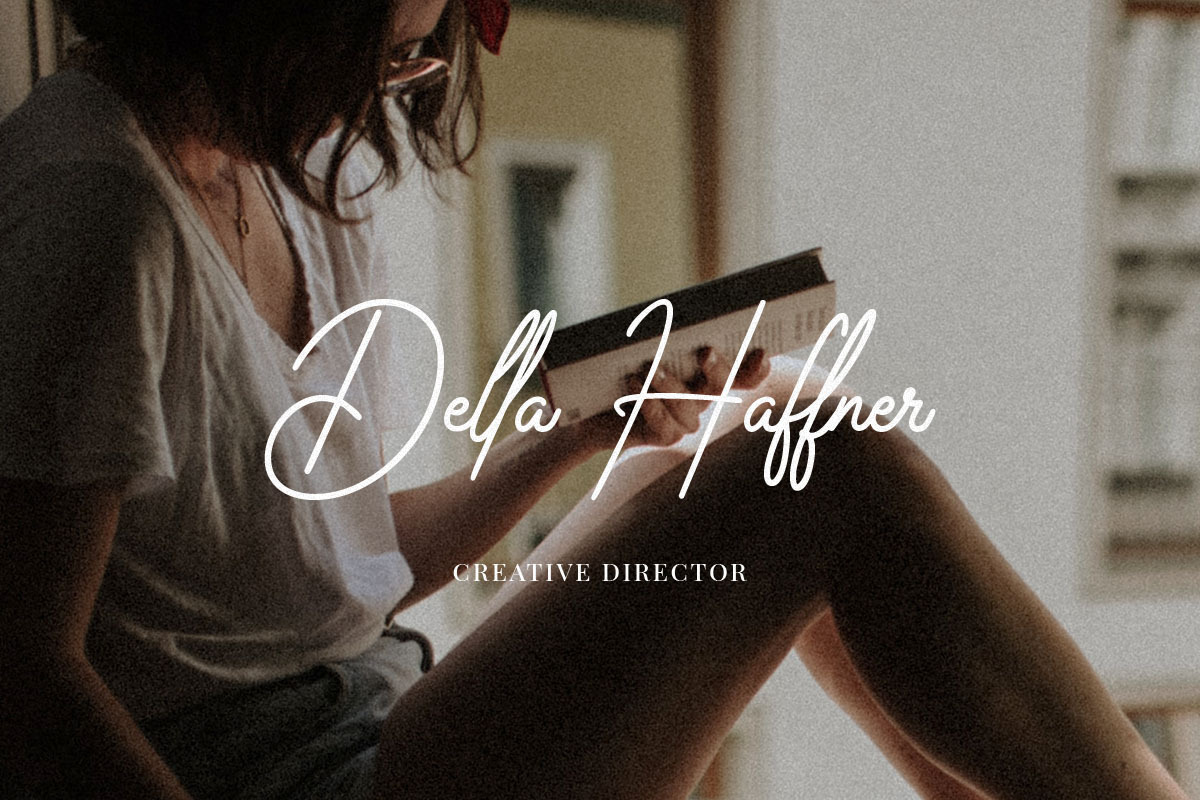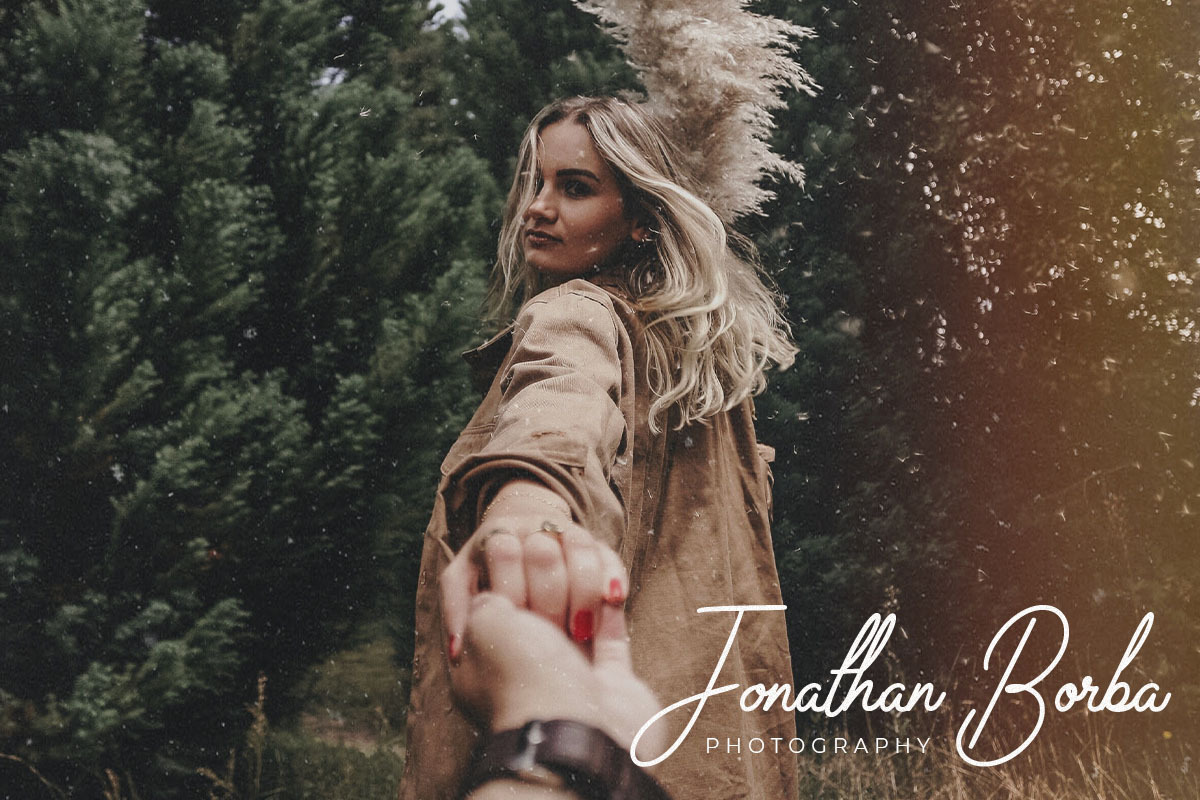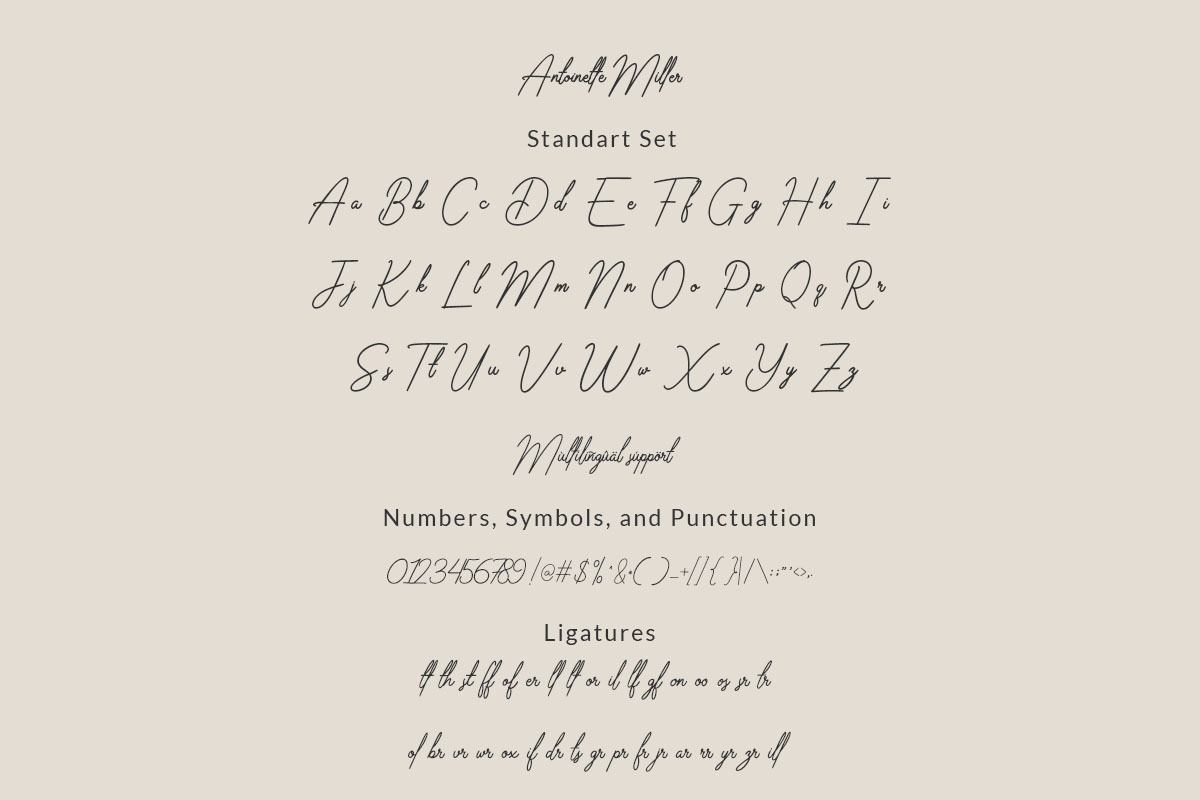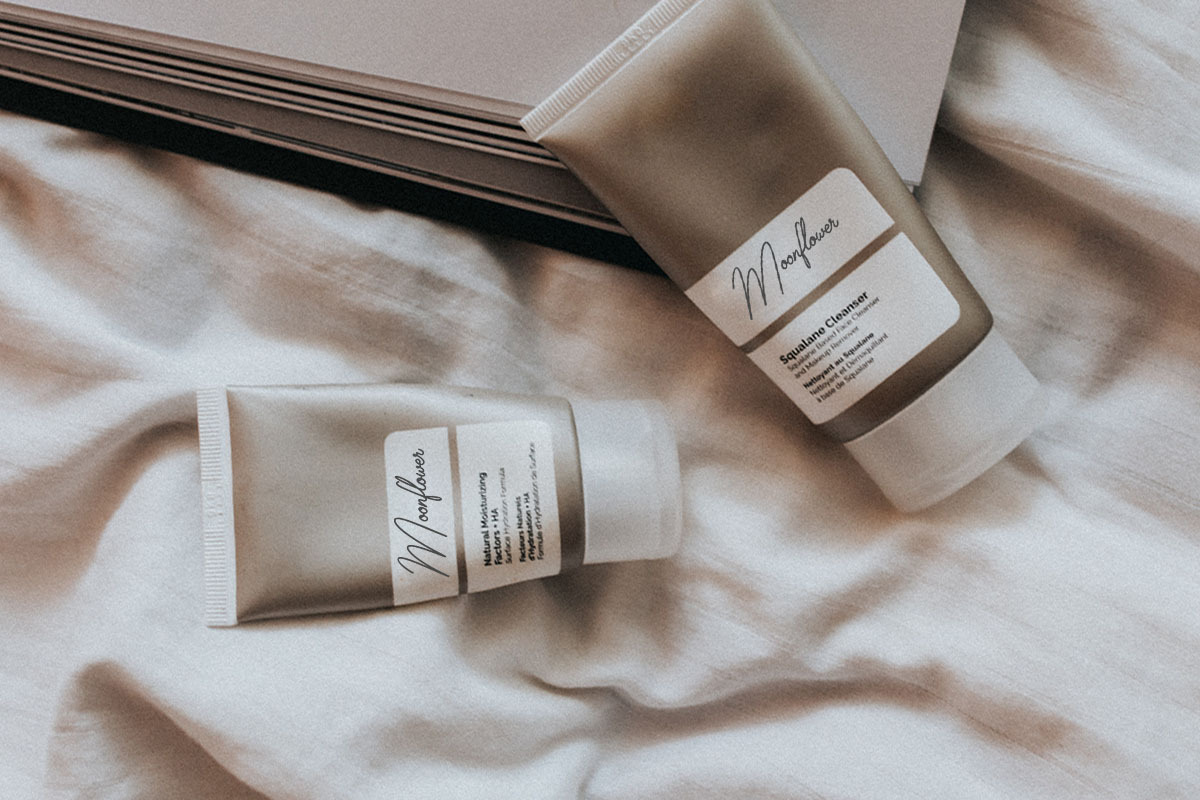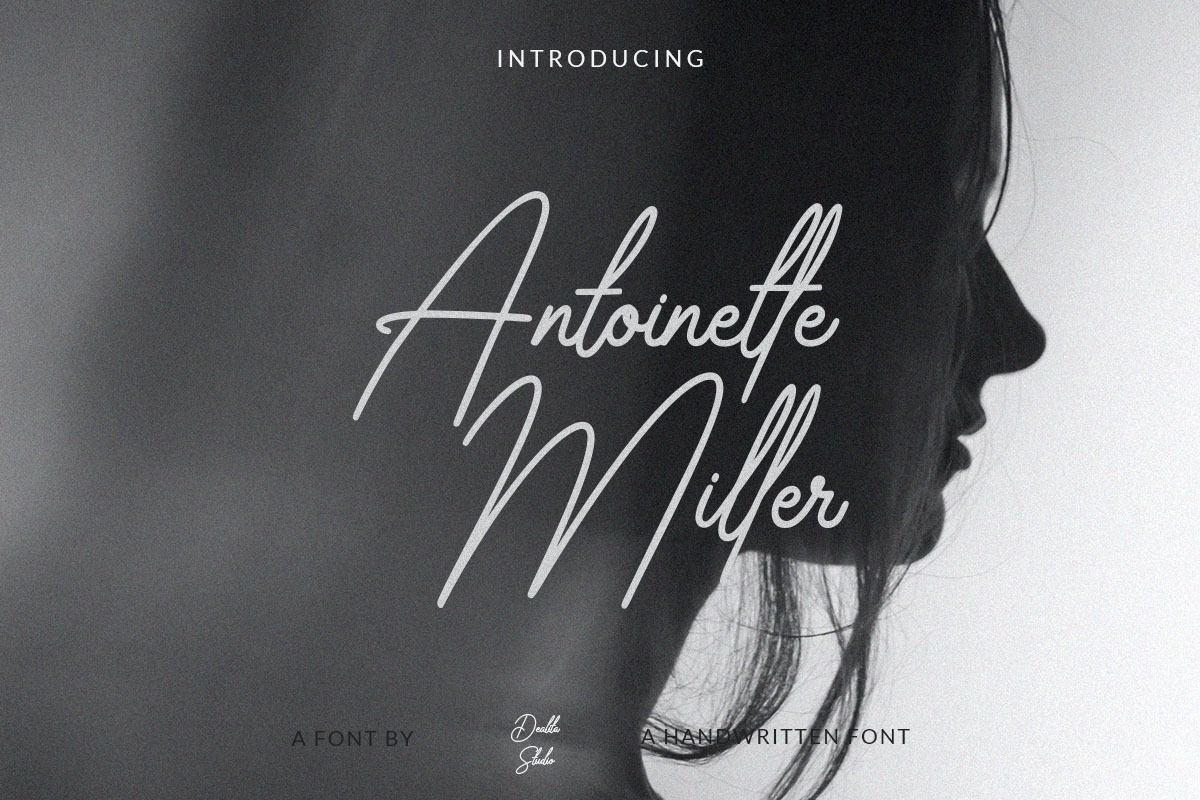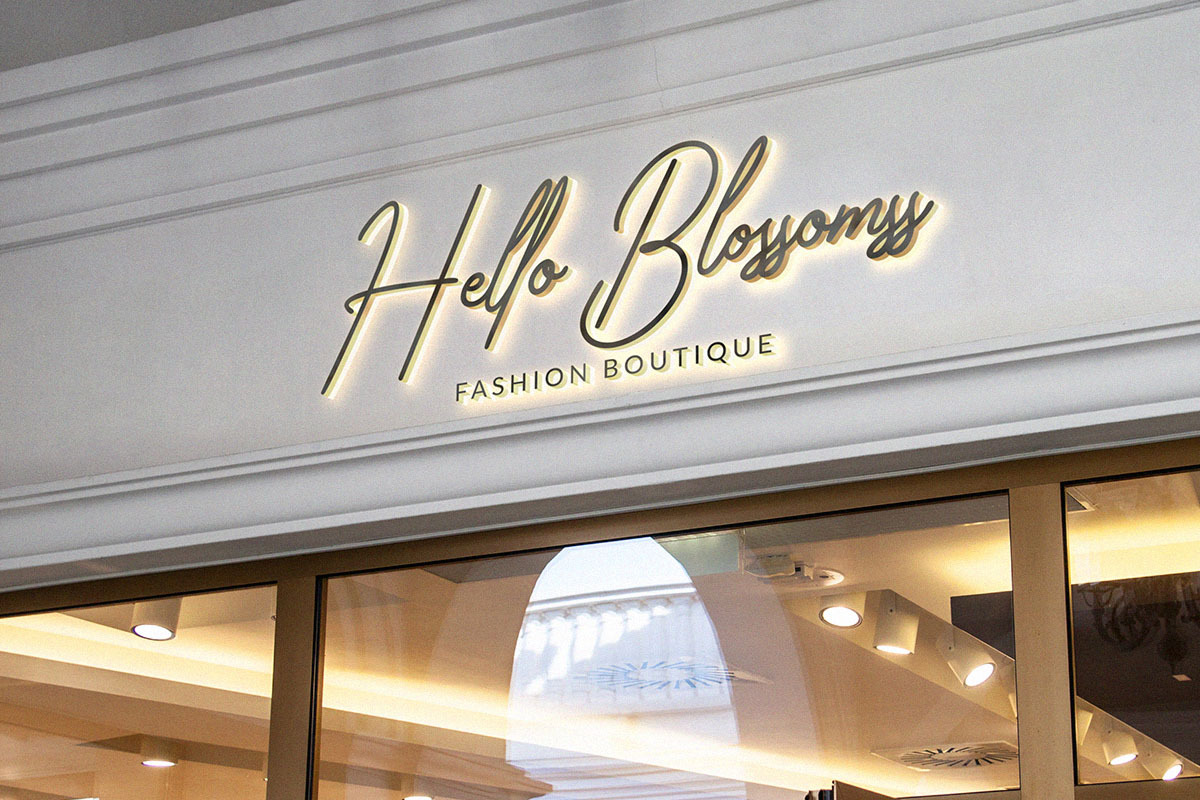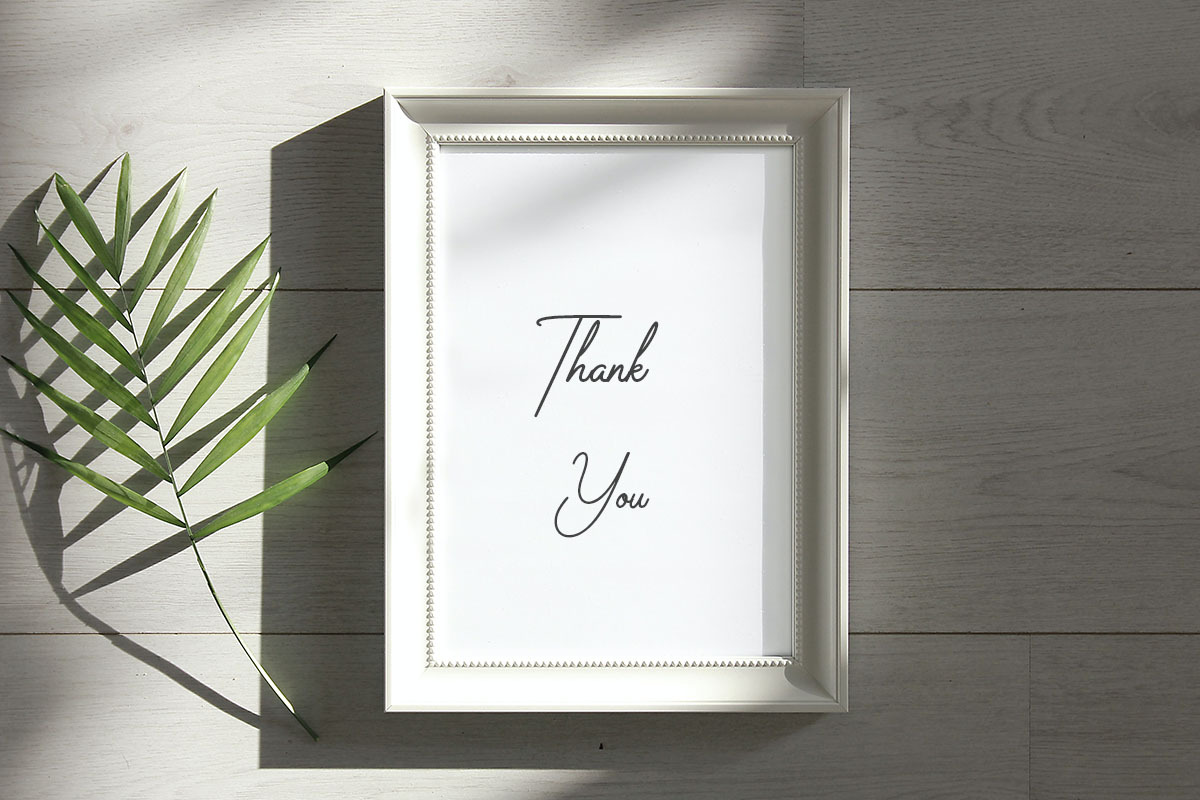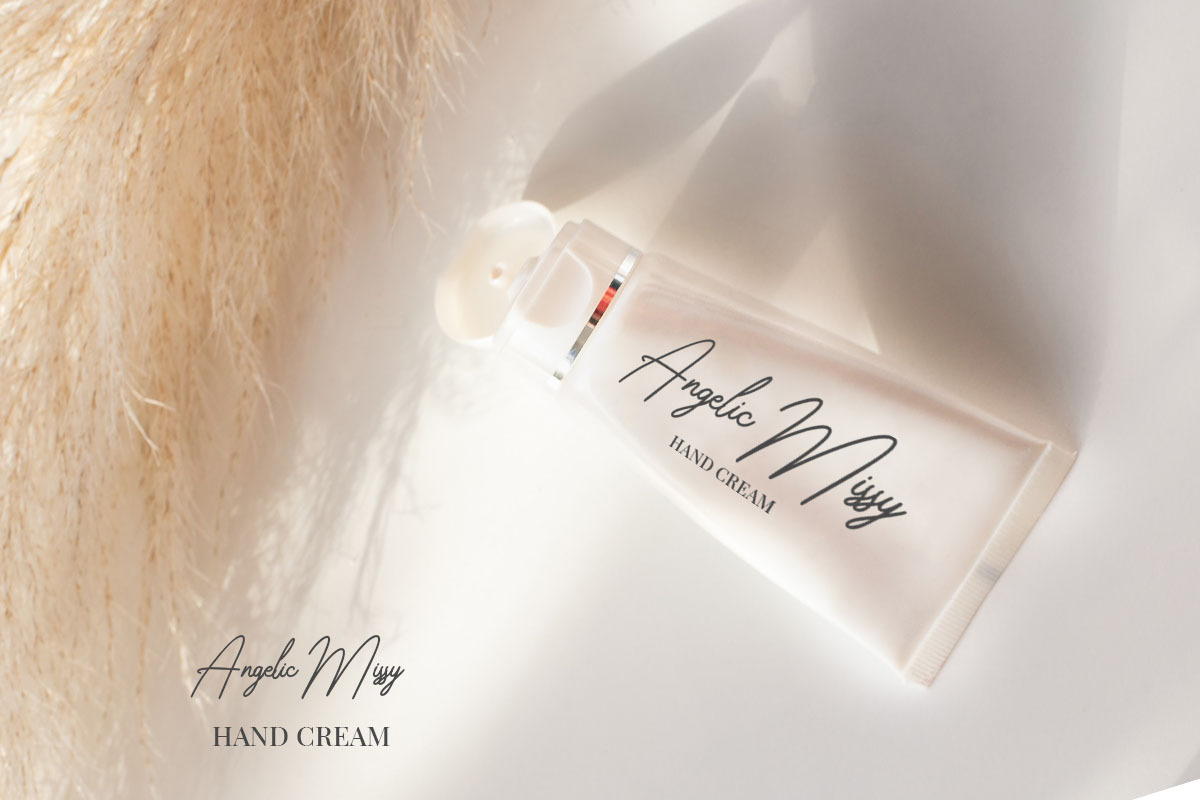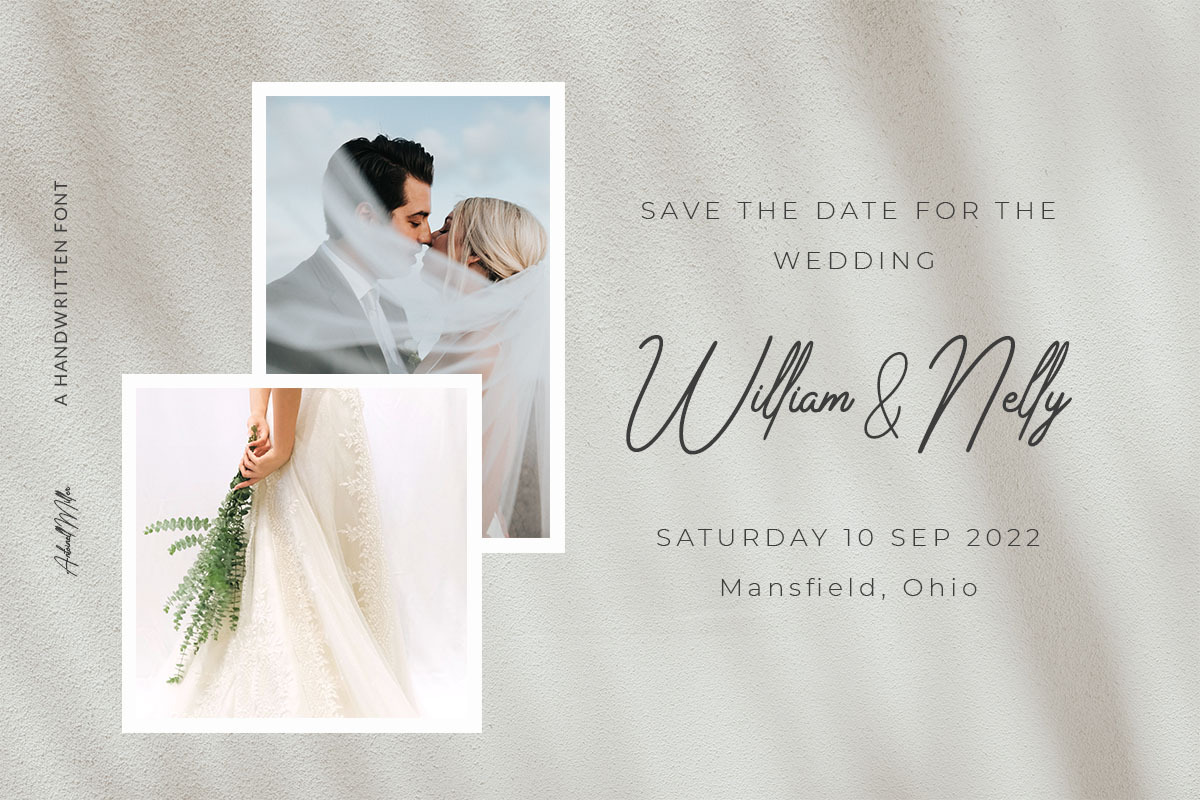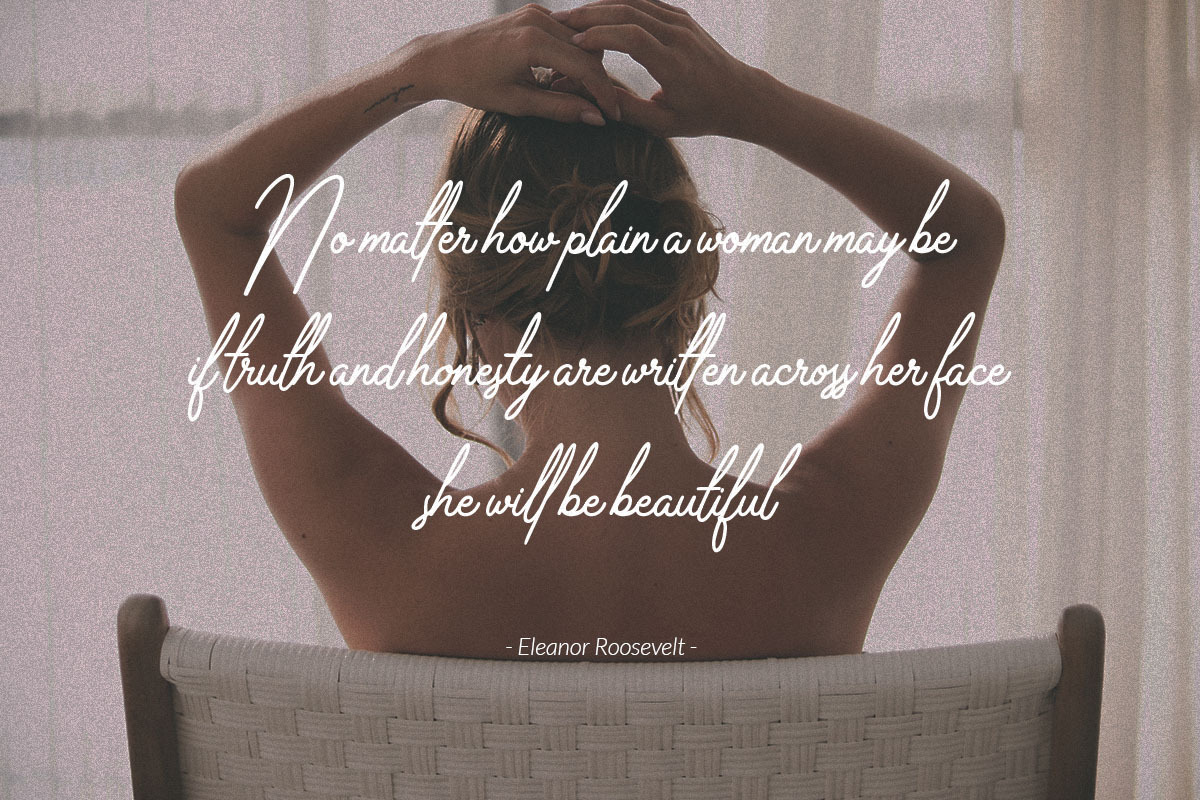
Antoinette Miller / Handwritten font
Introducing Antoinette Miller - Handwritten Script Font
Antoinette Miller is a sweet script typeface with legibility and authenticity. Use it for any design project that requires a personalized appearance!
This font is suitable for use on photography, business cards, weddings, t-shirt designs, logos, magazines, quotes, fashion, watermarks, invitations, and signatures.
- Support Multilingual Languange